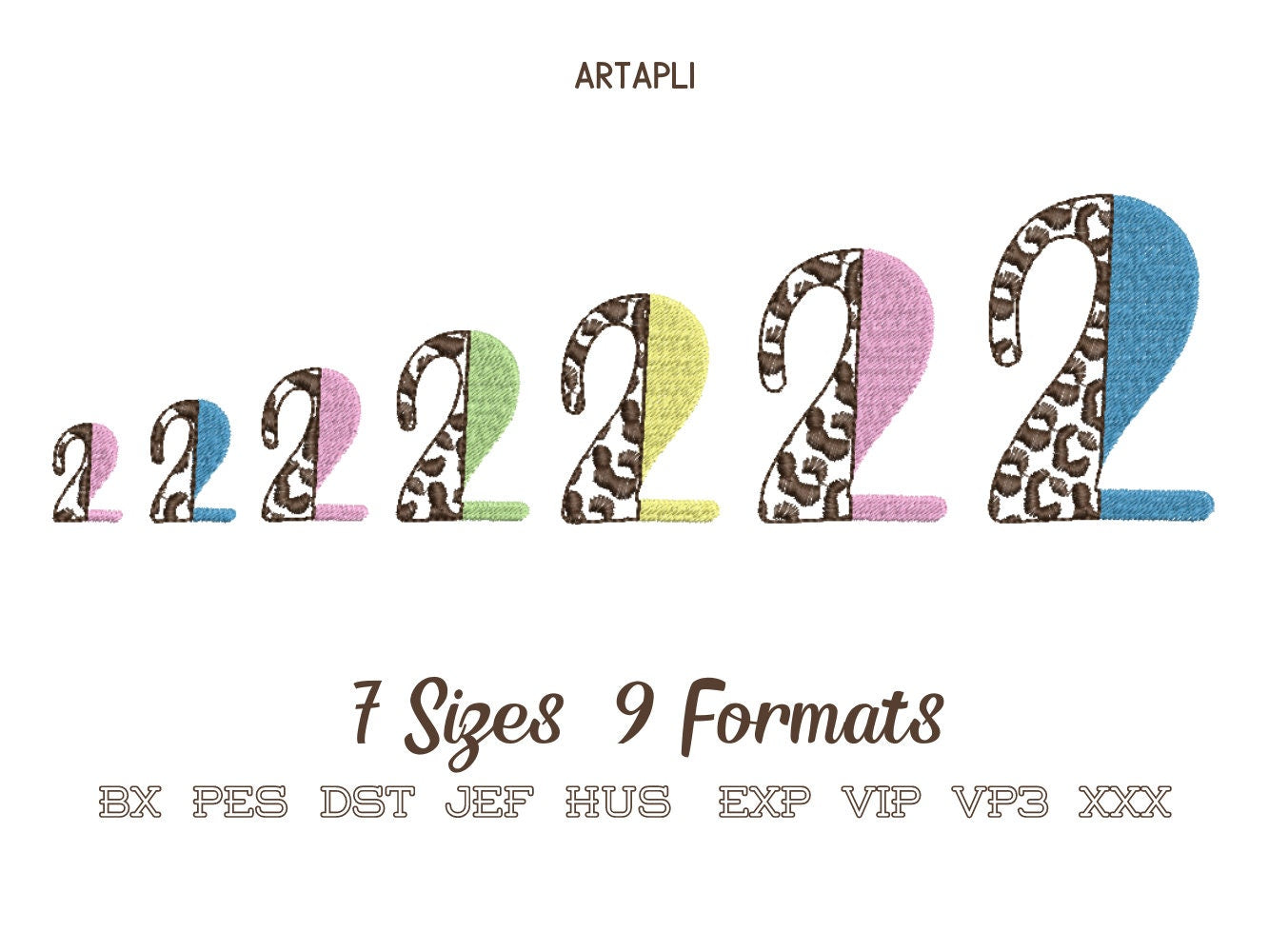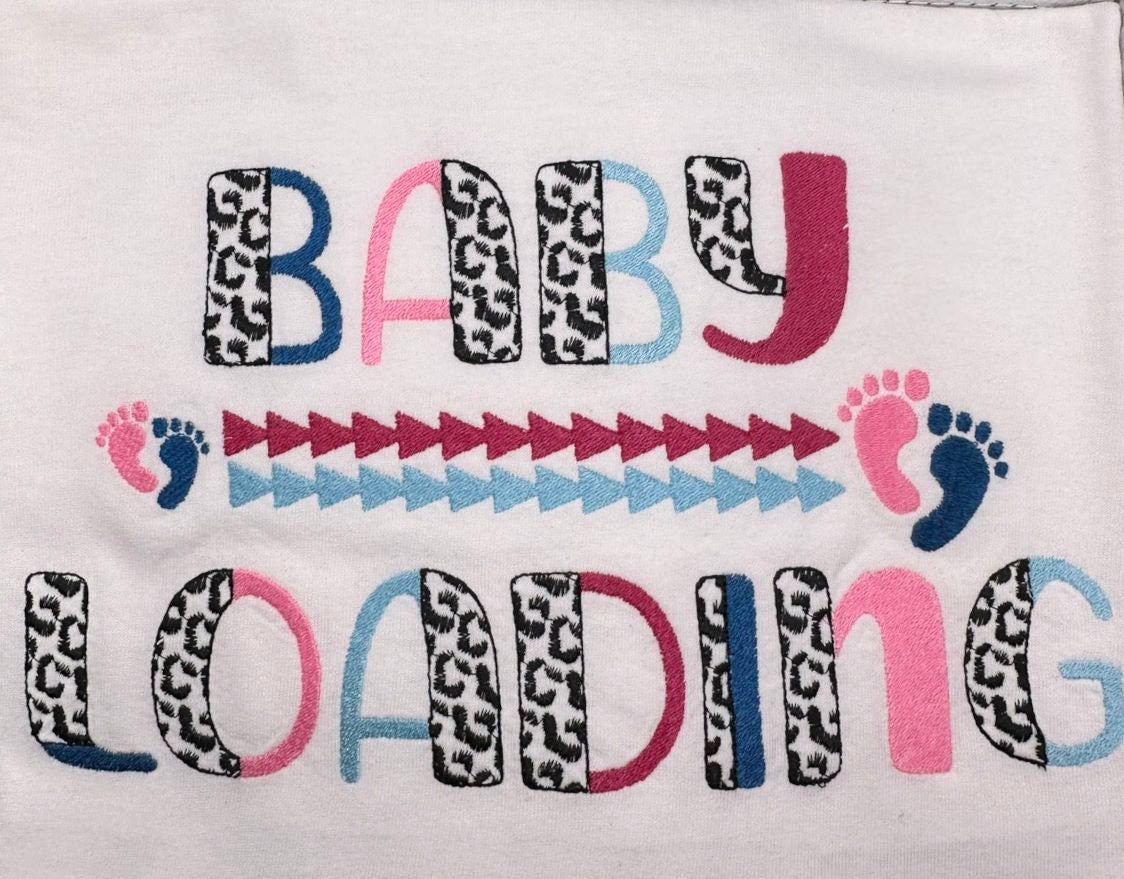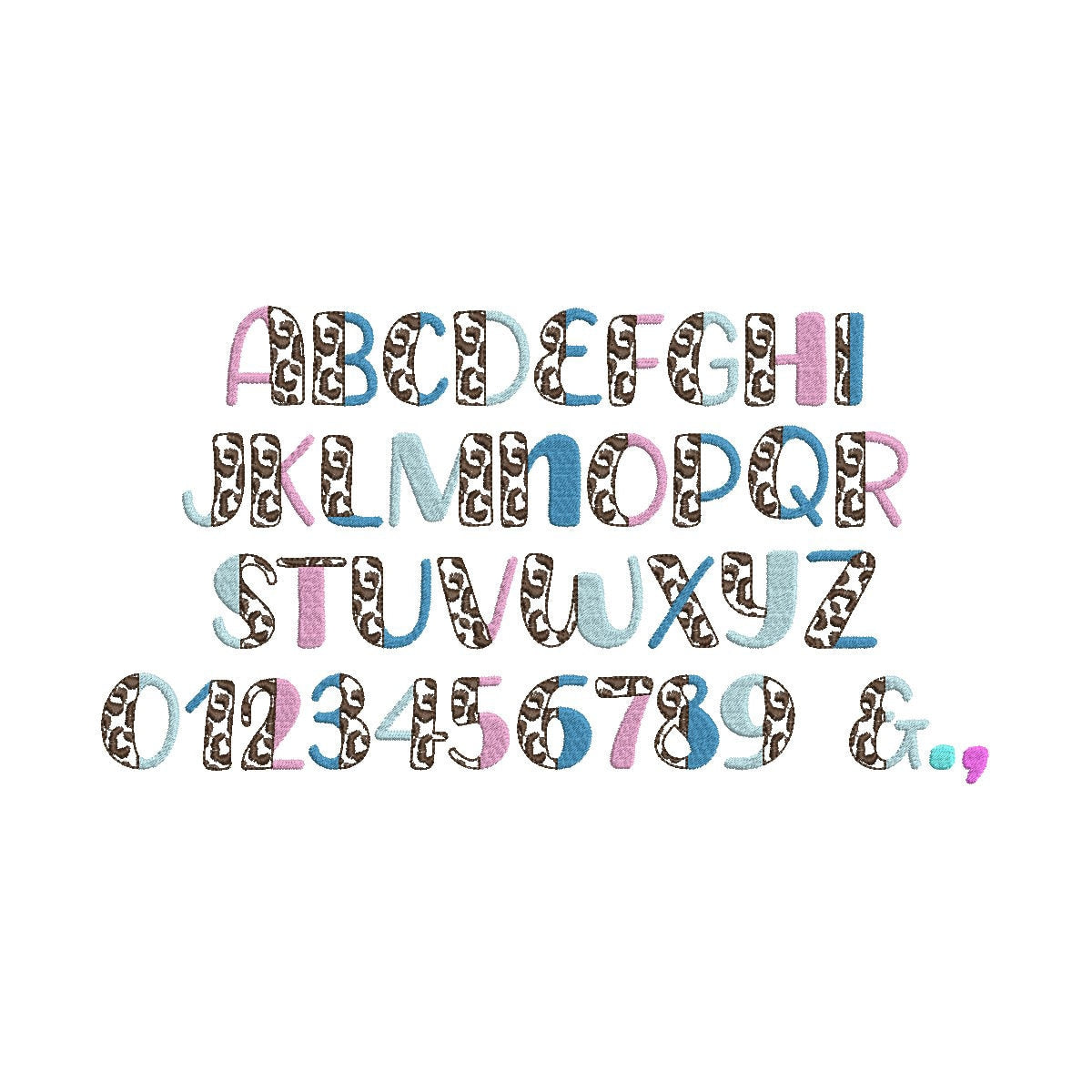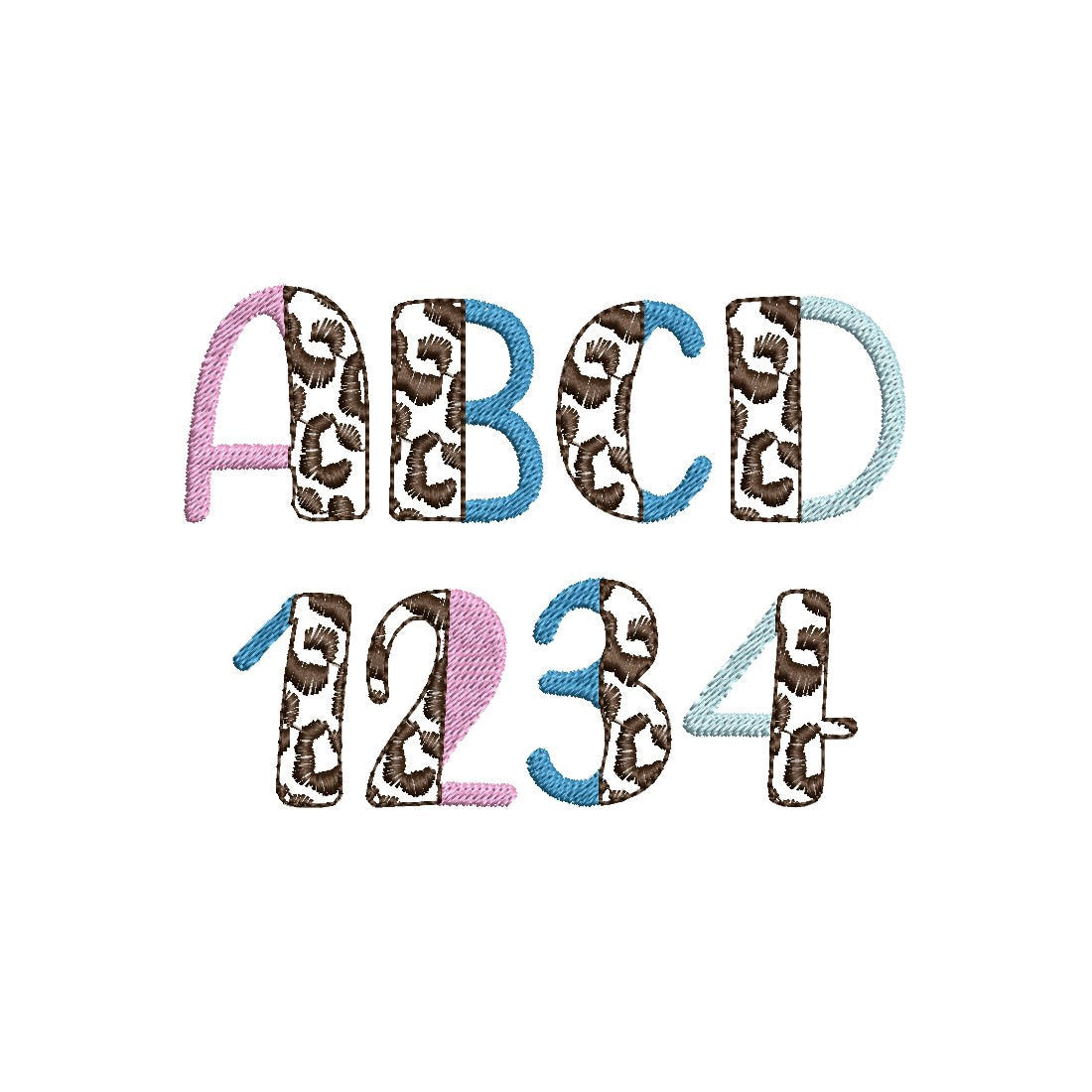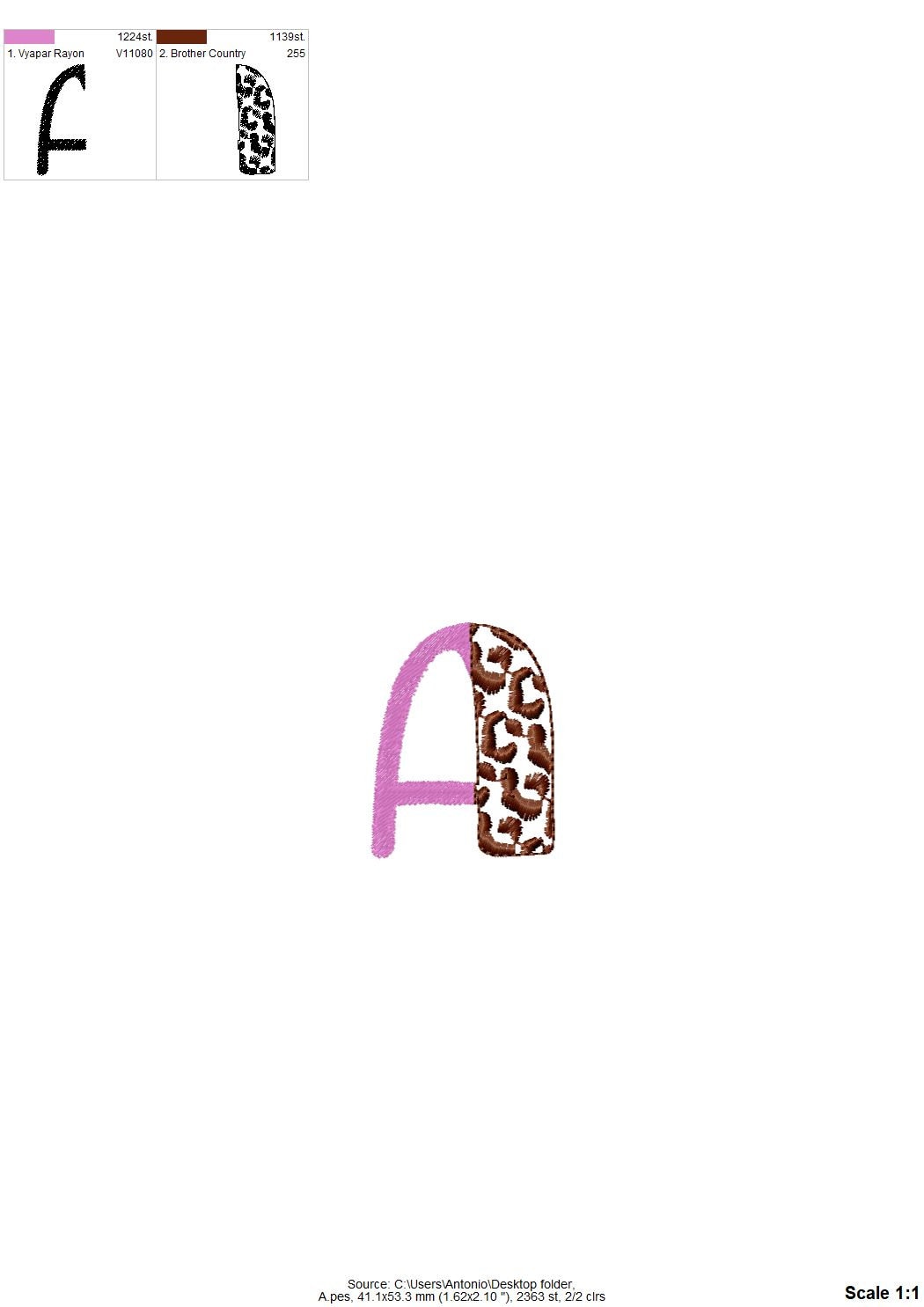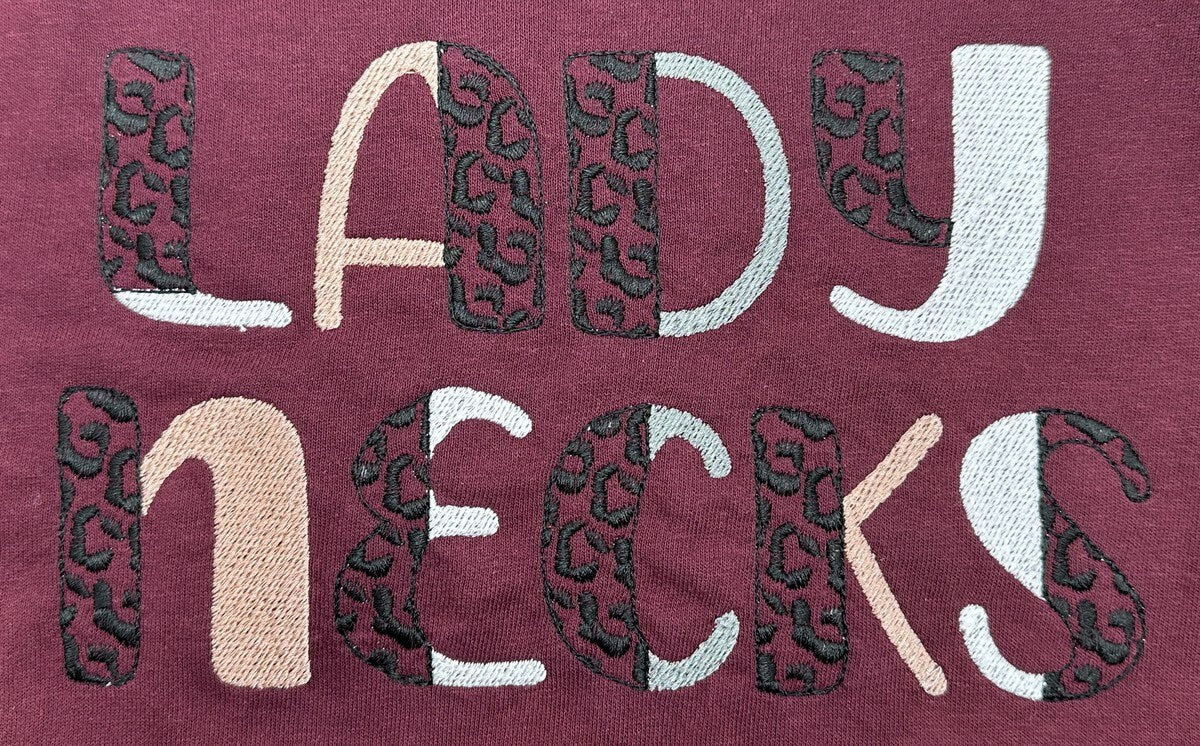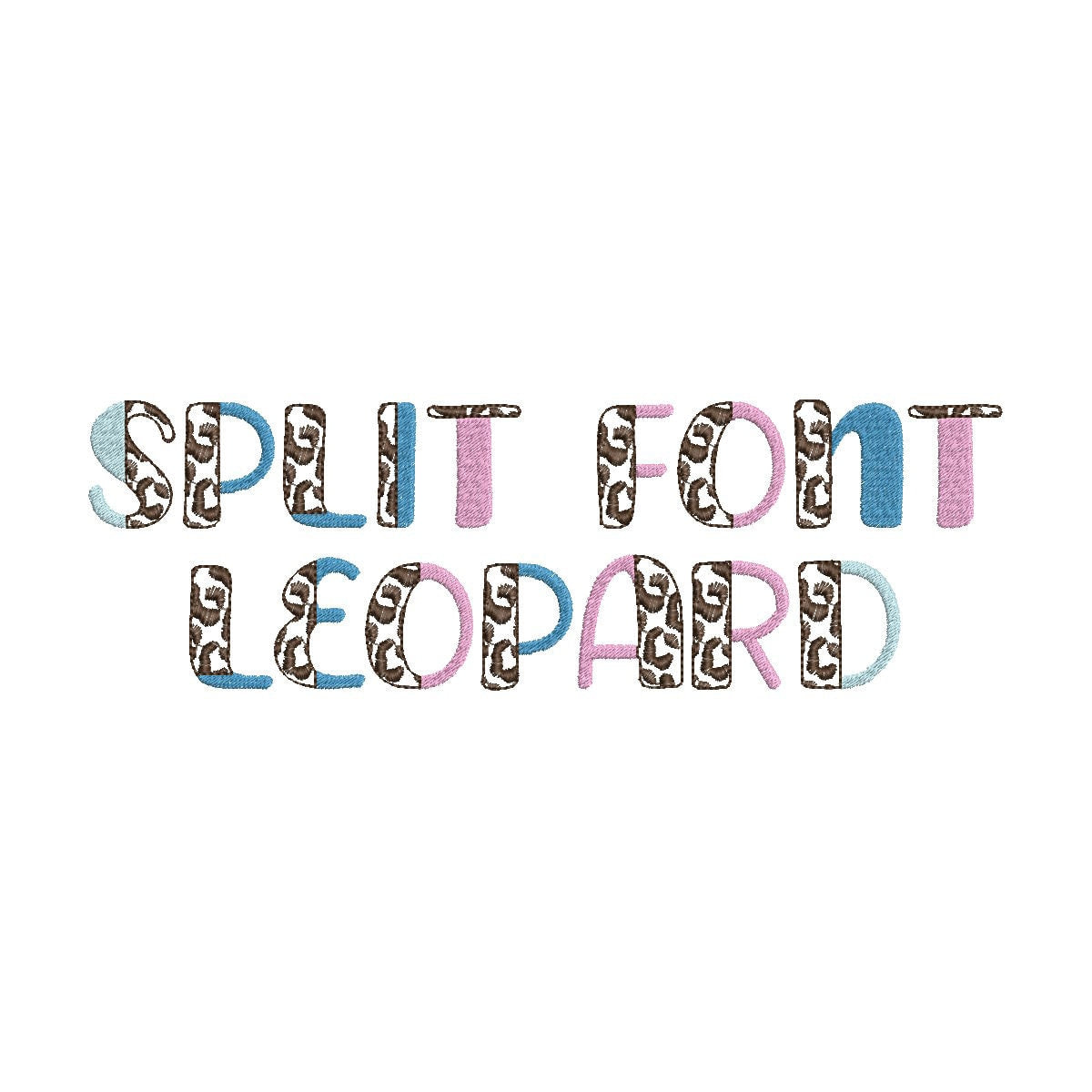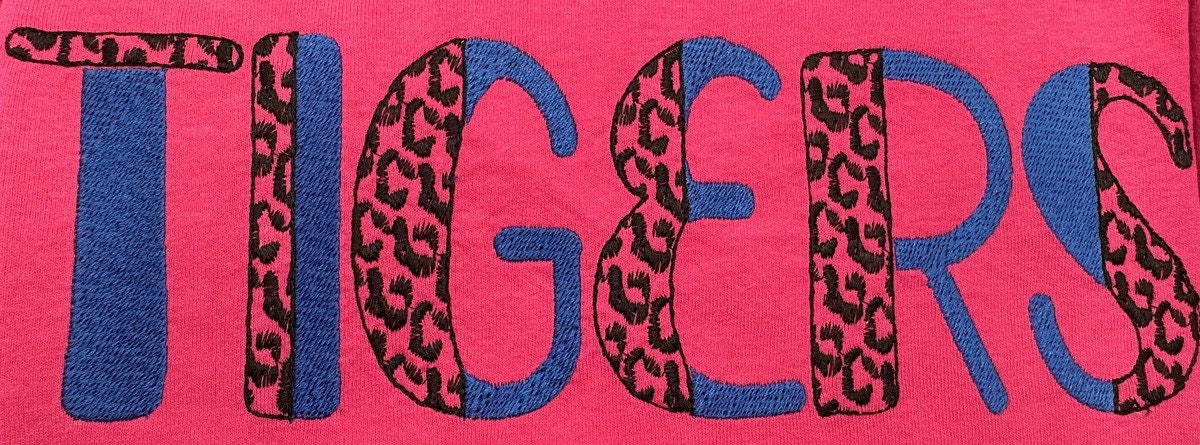
Or click to open the linkA split duo font: one half in fill stitch, the other in leopard spots. Fun for monograms, girls' shirts, bags and pillows.
Uppercase letters A to Z, numbers 0 to 9, an ampersand, comma, dash and period. Seven sizes: 1, 1.2, 1.5, 1.7, 2, 2.5 and 3 inches. The leopard side is see-through, so the fabric shows between the spots.